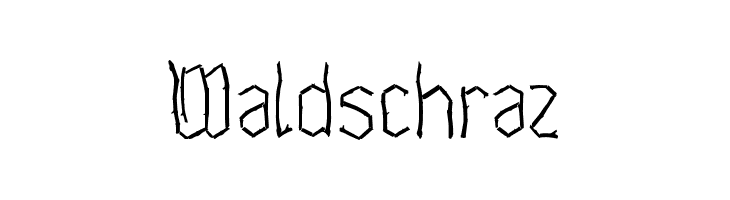
( Anthony Robinson - www.redbubble.com/people/anfa/portfolio )
An edgy, jagged font with a dripping, grungy aesthetic.
( Fabian Kirst - www.fabiankirst.tumblr.com )
A rugged, hand-drawn font with an organic, twig-like appearance.
( Iordanis Passas - http:/ip-art.info )
A bold, edgy font with sharp, jagged strokes and a rebellious style.
( Poemhaiku - Huong Le Thi Thu - www.behance.net/poemhaiku )
A hand-drawn, twig-like font with an organic, rustic style.
( Character )
Intricate, hand-drawn bird illustrations for each character.
( LeChefRene - members.aol.com/lcrfonts/ )
A whimsical, spooky font with characters resembling haunted trees.
( Mawhrt )
A decorative font with intricate, vine-like embellishments and a mysterious, enchanting style.
( Nght's Place - www.crosswinds.net/~nghtmvs/font/fonts1.html )
A decorative font with uppercase letters and numbers in a bird's nest style.
( Fonts by Youssef Habchi )
Hand-drawn floral and botanical wreaths with delicate, decorative style.
( Fonts by www.sparkybuddy.com )
A collection of Metal Gear Solid-themed graphic icons and illustrations.